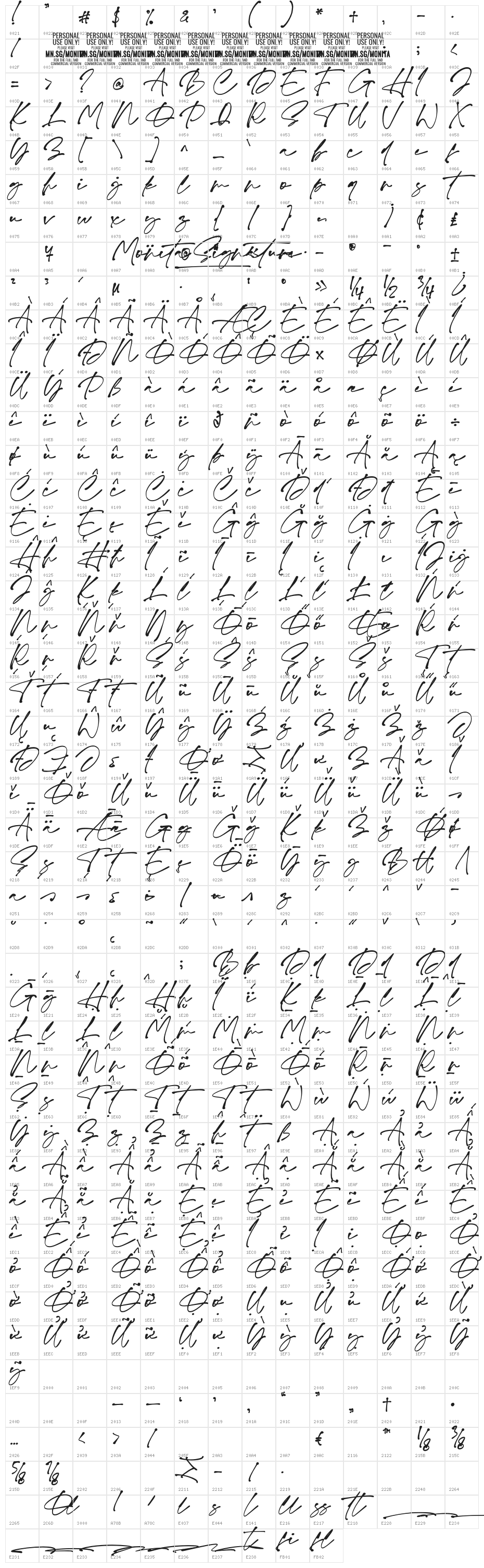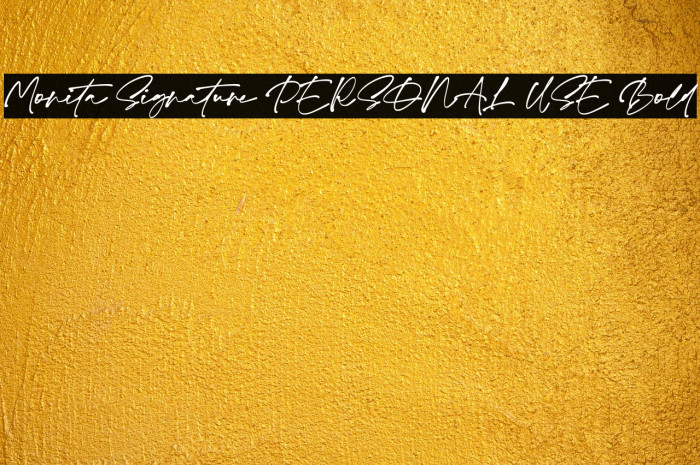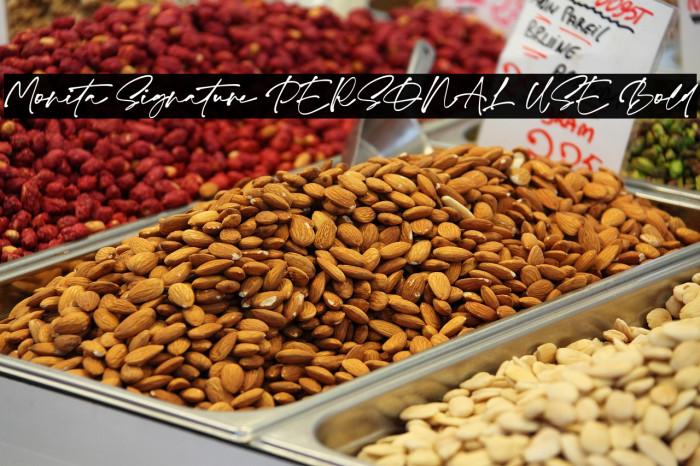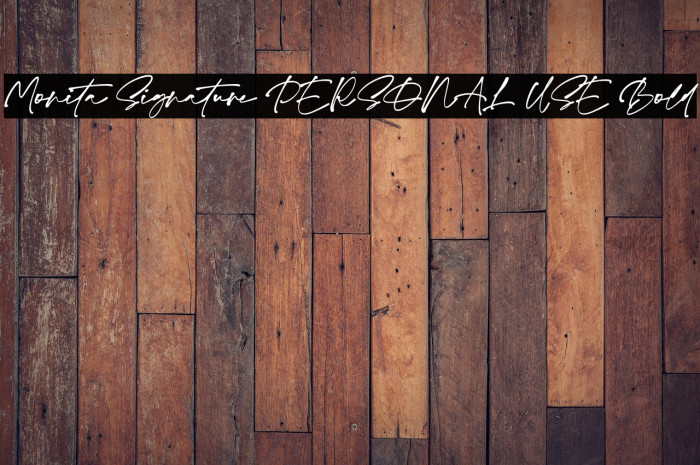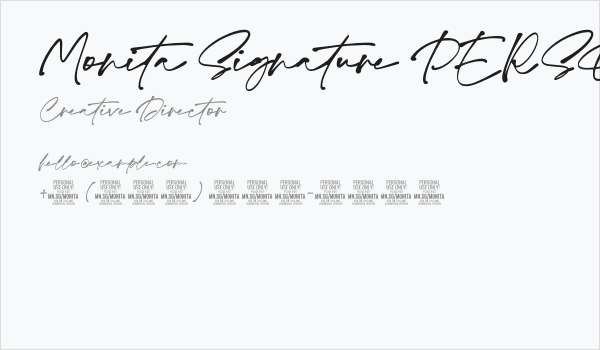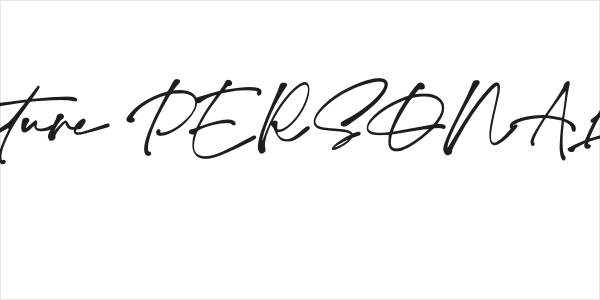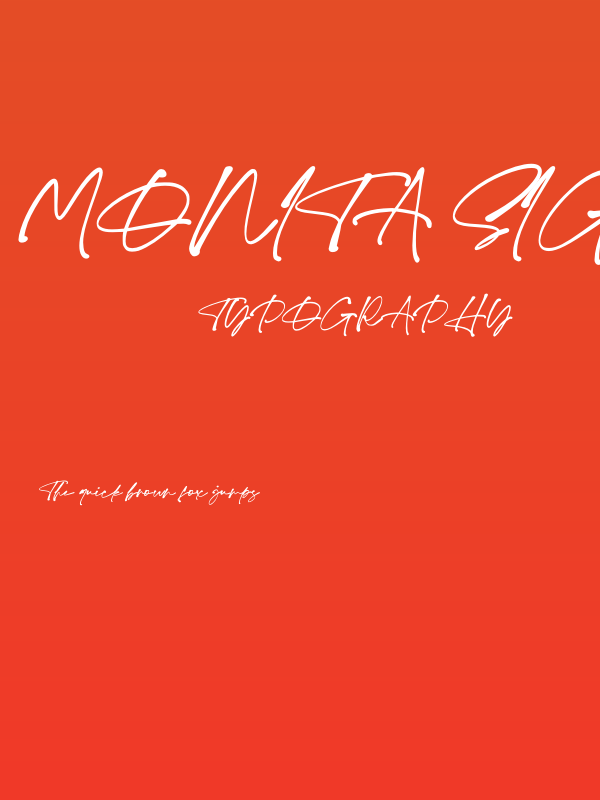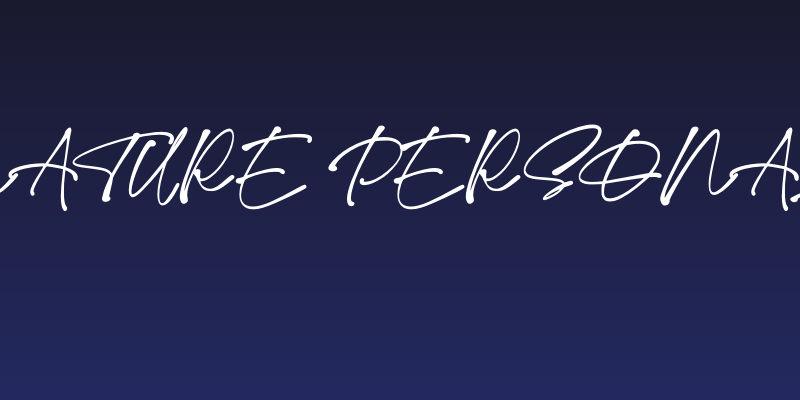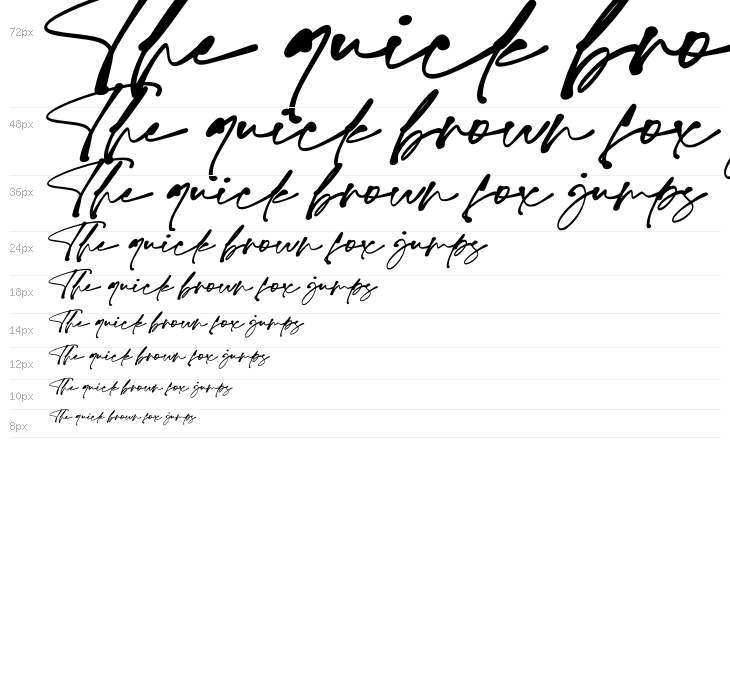
Monita Signature PERSONAL USE Bold Font
Monita Signature PERSONAL USE Bold Description
This font features a flowing, cursive style that mimics the fluidity of a handwritten signature. The characters are interconnected with smooth, sweeping strokes, giving it an elegant and personal touch. The uppercase letters are bold and prominent, while the lowercase letters maintain a consistent flow, enhancing the script-like appearance. The numbers and special characters are designed to match the overall aesthetic, ensuring a cohesive look across all text. This font is perfect for adding a personal, sophisticated flair to any project.
| Use Case | Logos, Invitations, Personal Signatures |
| Proposed Projects | Ideal for branding, invitations, personal signatures, and elegant stationery. |